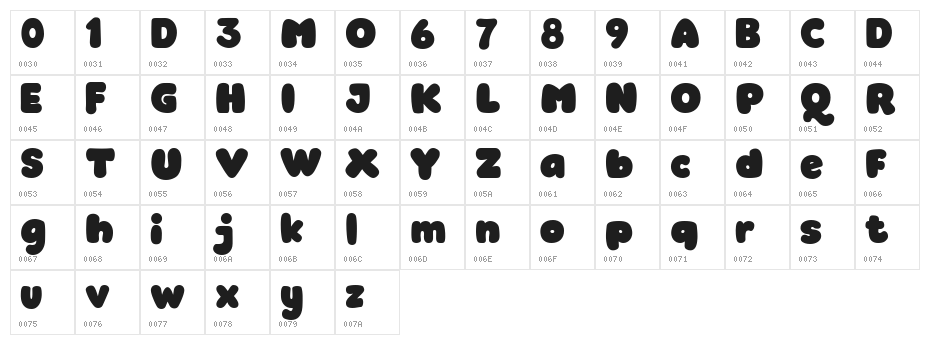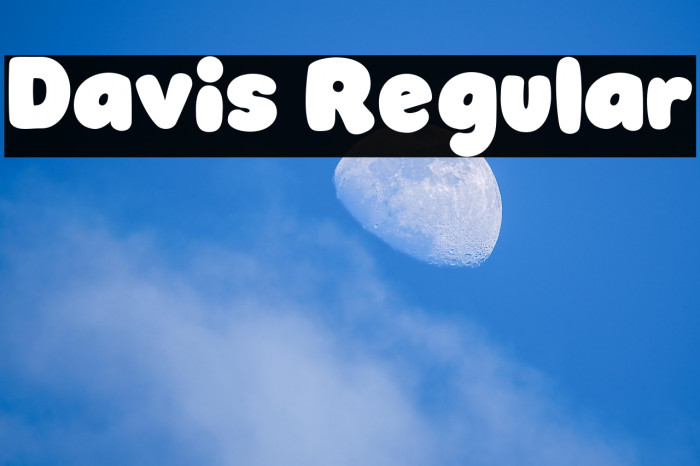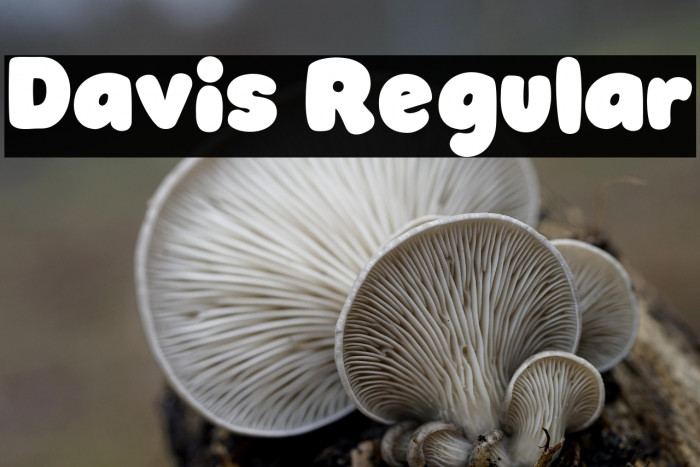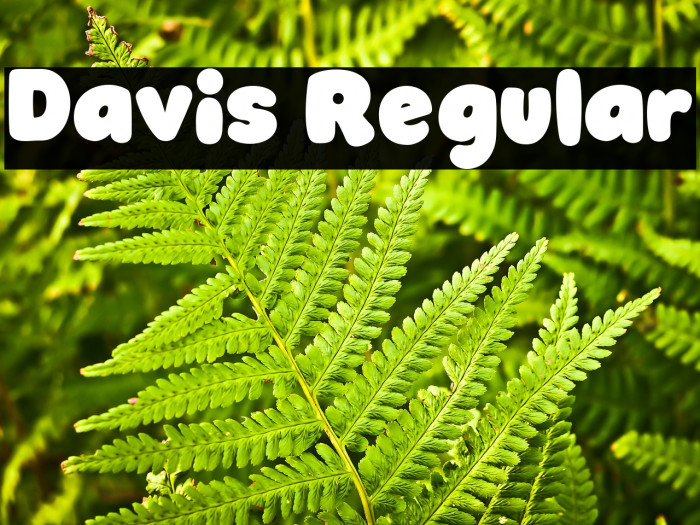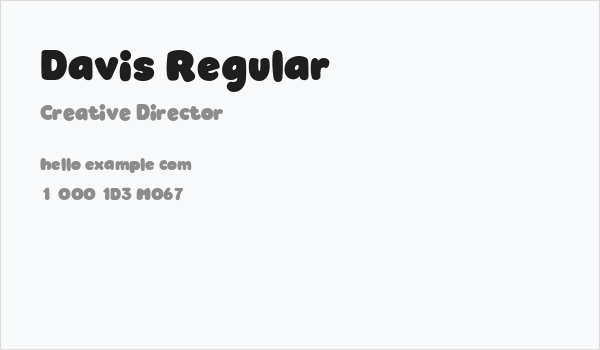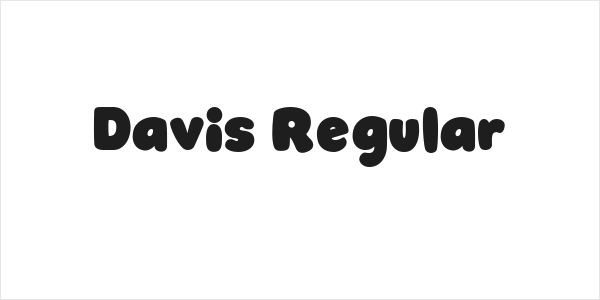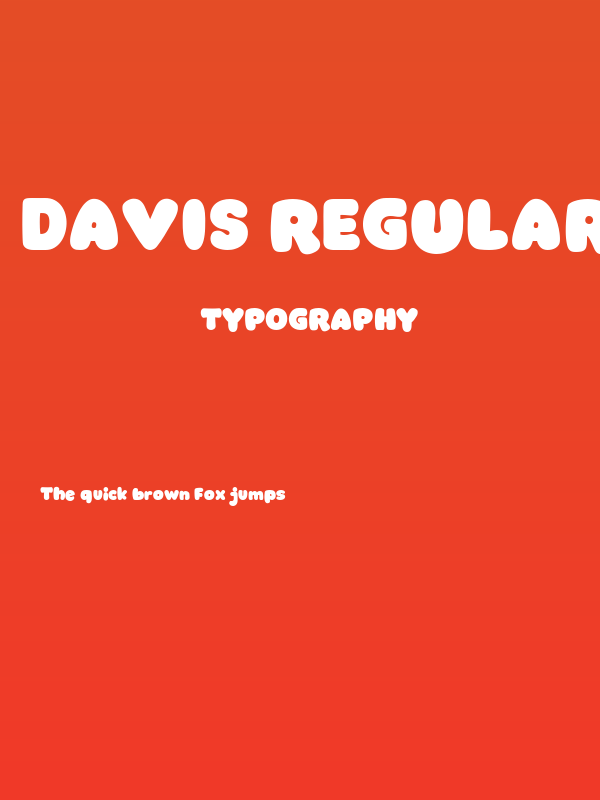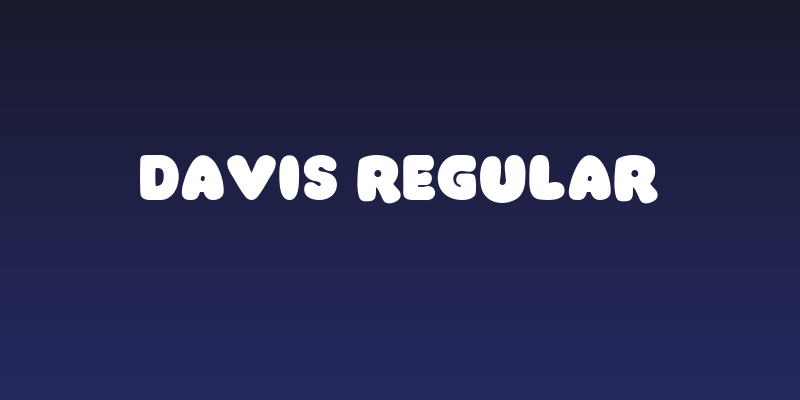
Davis Regular Font
Davis Regular Description
This font features a bold, playful design with rounded, bubble-like characters that convey a sense of fun and approachability. The letters are uniformly thick, giving them a strong presence on the page. The rounded edges and consistent stroke width create a harmonious and friendly appearance. This style is reminiscent of retro or vintage designs, often used to evoke nostalgia or a casual, informal tone. The font maintains a consistent weight throughout, ensuring readability while adding a unique character to the text.
| Overall Style | Playful, Retro |
| Proposed Projects | Ideal for children's books, playful branding, posters, and social media graphics. |